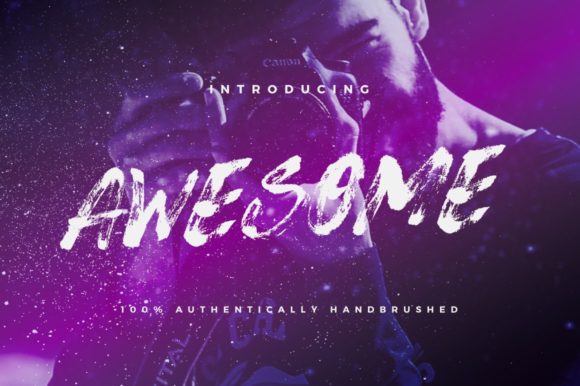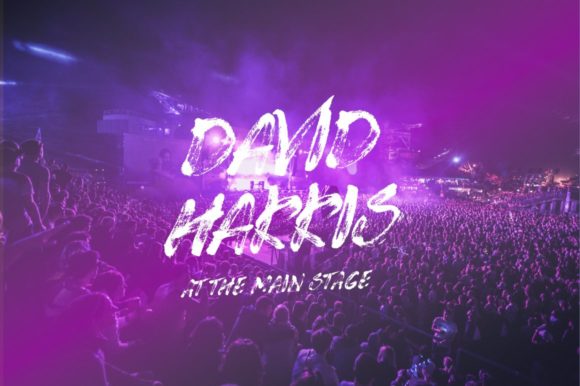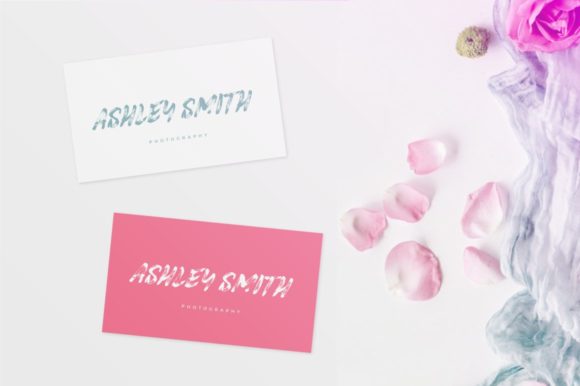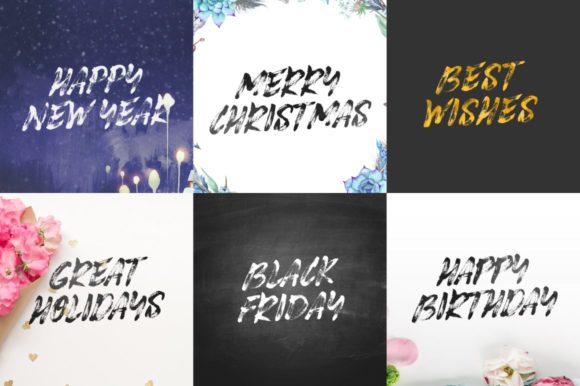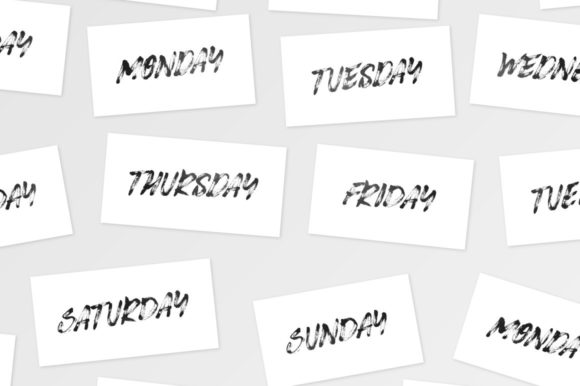
HomeScript FontsAwesome Font Script Fonts Awesome Font FacebookXPinterestWhatsApp Awesome Font Poster 2 Awesome Font Poster 3 Awesome Font Poster 4 Awesome Font Poster 5 About Awesome Font Awesome is a 100% hand-lettered dry brush script with a bold and urban feel. DOWNLOAD NOW People also explored Feliztha Script Font Simple Signature Font Candy Chicks Font Peaceful Protest The Flasher Font Jolly and Snowy Monogram Font Lounge Time Font Sabhar Font The Smile Font 300 0 TagsAwesome Font Previous articleMasterblush FontNext articleSaturday Font LEAVE A REPLY Cancel reply Comment: Please enter your comment! Name:* Please enter your name here Email:* You have entered an incorrect email address! Please enter your email address here Website: Save my name, email, and website in this browser for the next time I comment. Personal Use Free Fakedes Personal Use Free Read more about this font Hiters Personal Use Free Read more about this font Roland Personal Use Free Read more about this font Gaboed Personal Use Free Read more about this font BLOG Best Fonts for YouTube Videos: Make Your Thumbnails Stand Out Best Fonts for YouTube Videos: Make Your Thumbnails Stand Out Choosing the right font can make a massive difference in how your YouTube videos perform.... Free Fonts Risk: Why Free Fonts Can Be Dangerous for Designers Top 7 Google Fonts Alternatives for Faster and Privacy-Friendly Web Design (2025) Free vs Paid Fonts: Why Investing in Premium Fonts Is Worth It